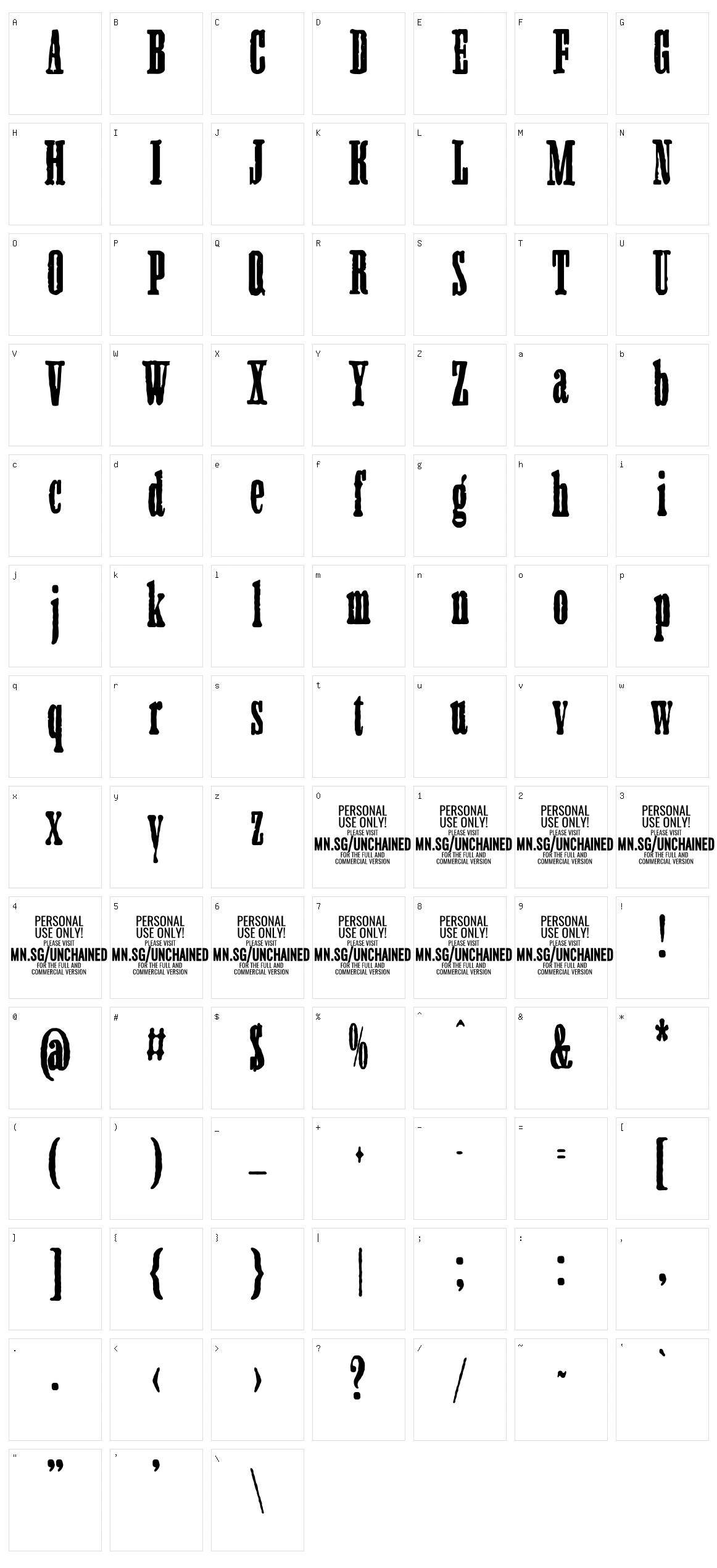
Unchained is a Western serif typeface.
In an old cowboy style, this frontier font has a traditional appearance with a tough look. Drawn and created by Mans Greback in 2022, the vintage font has eroded letterforms and a sturdy personality.
The Unchained family consists of three classic styles:
Regular, Bold and Rough, complimenting each other for the greatest design possibilities.
The font is built with advanced OpenType functionality and has a guaranteed top-notch quality, containing stylistic and contextual alternates, ligatures and more features; all to give you full control and customizability.